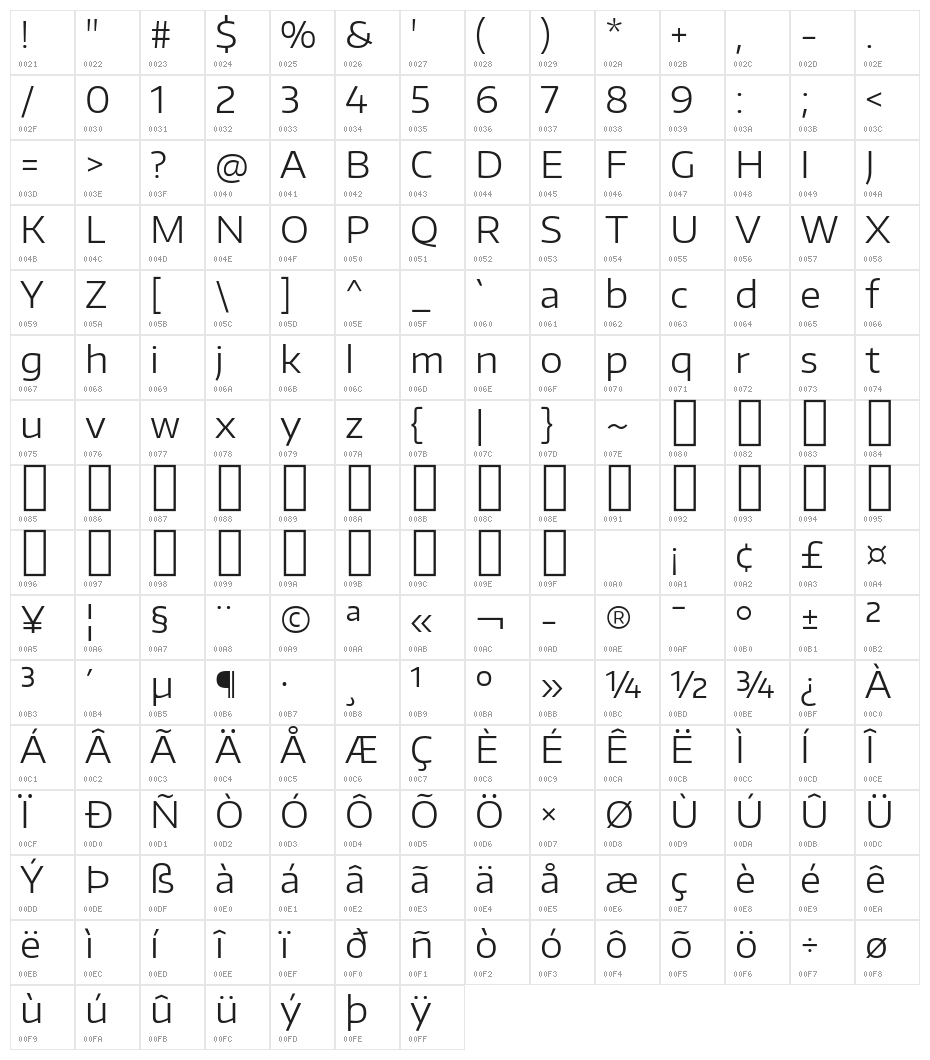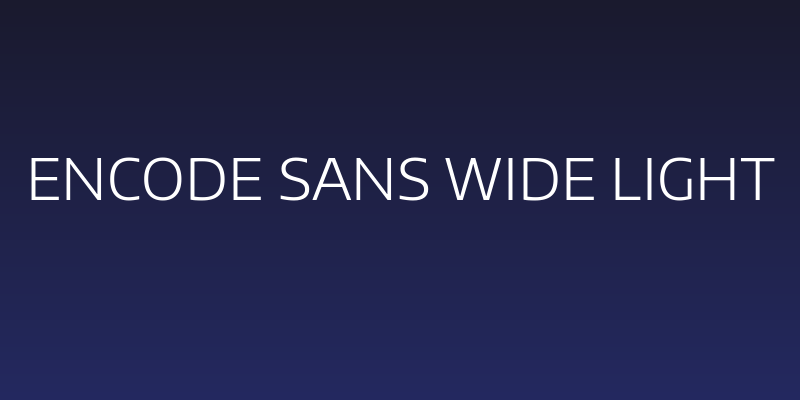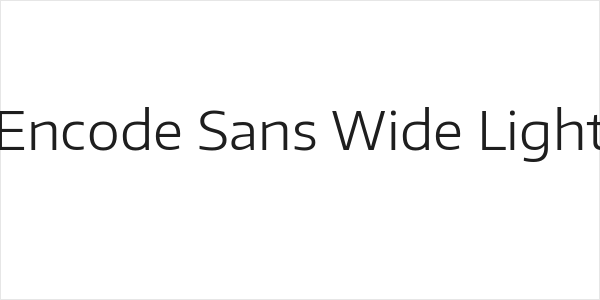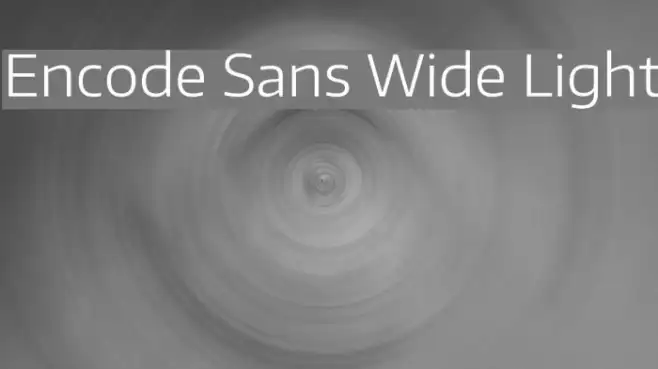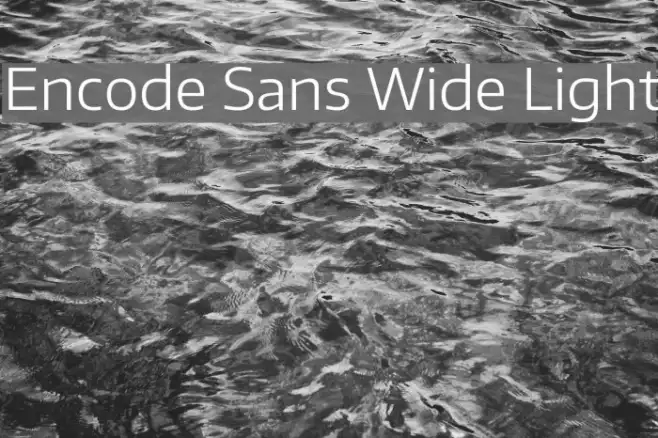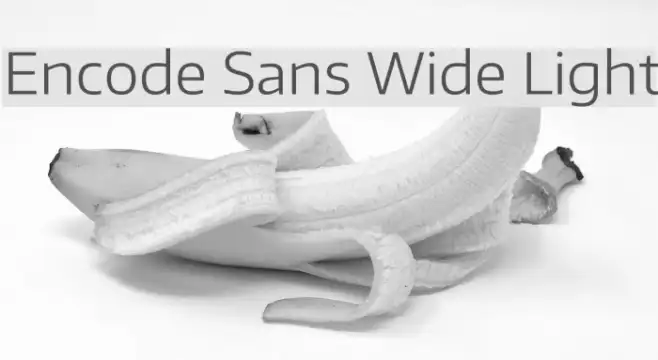
Encode Sans Wide Light Font
Encode Sans Wide Light Description
This typeface features a clean, modern sans-serif design with a wide stance, giving it a distinctive and airy appearance. The characters are evenly spaced, providing excellent readability. The strokes are consistent and light, contributing to a minimalist aesthetic. The uppercase letters are bold and commanding, while the lowercase letters maintain a harmonious balance. The numerals are clear and straightforward, making them suitable for various applications. Special characters are well-integrated, ensuring versatility in design projects.
| Proposed Projects | Ideal for branding, web design, advertising, and editorial layouts where clarity and modernity are essential. |